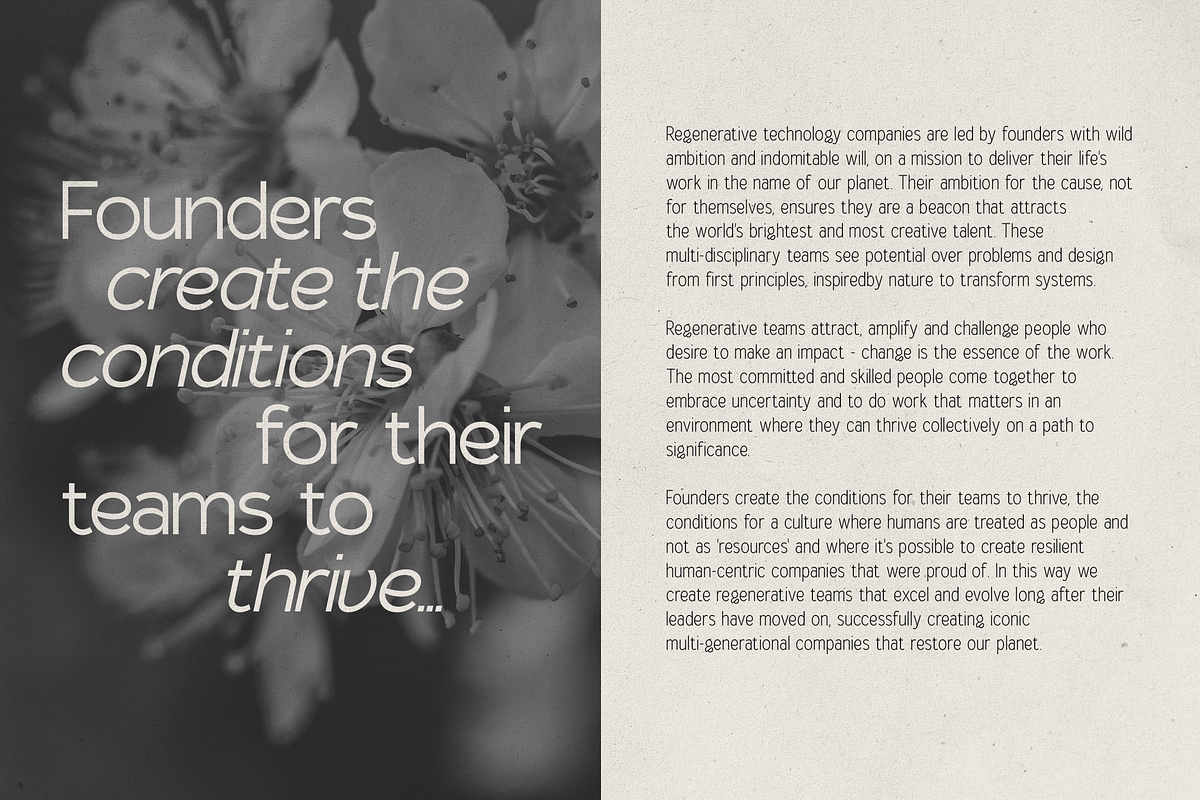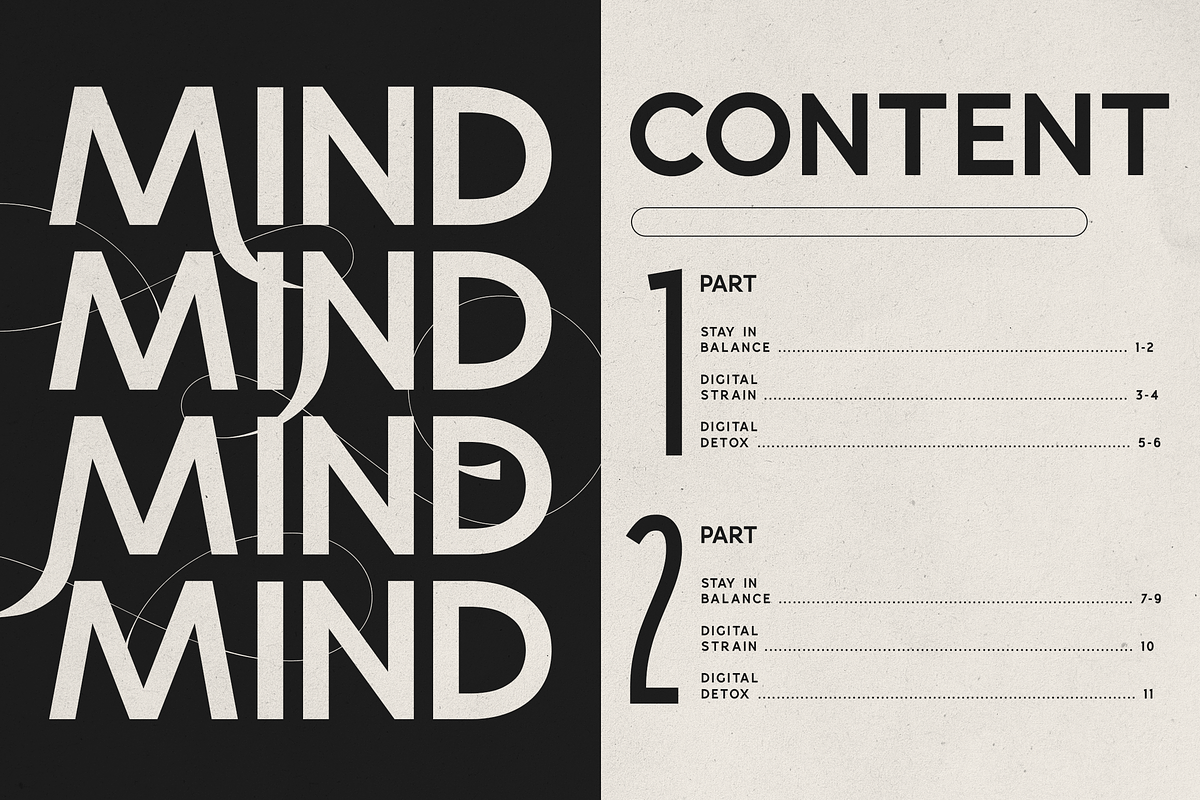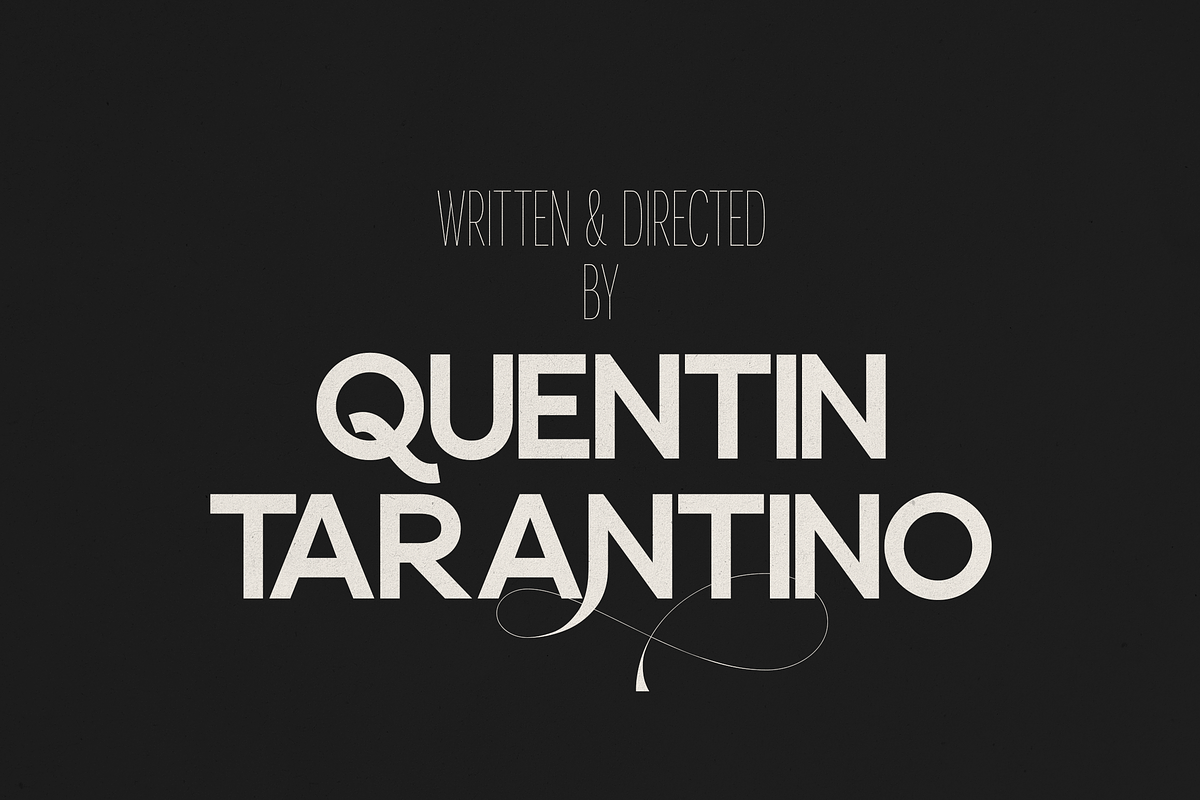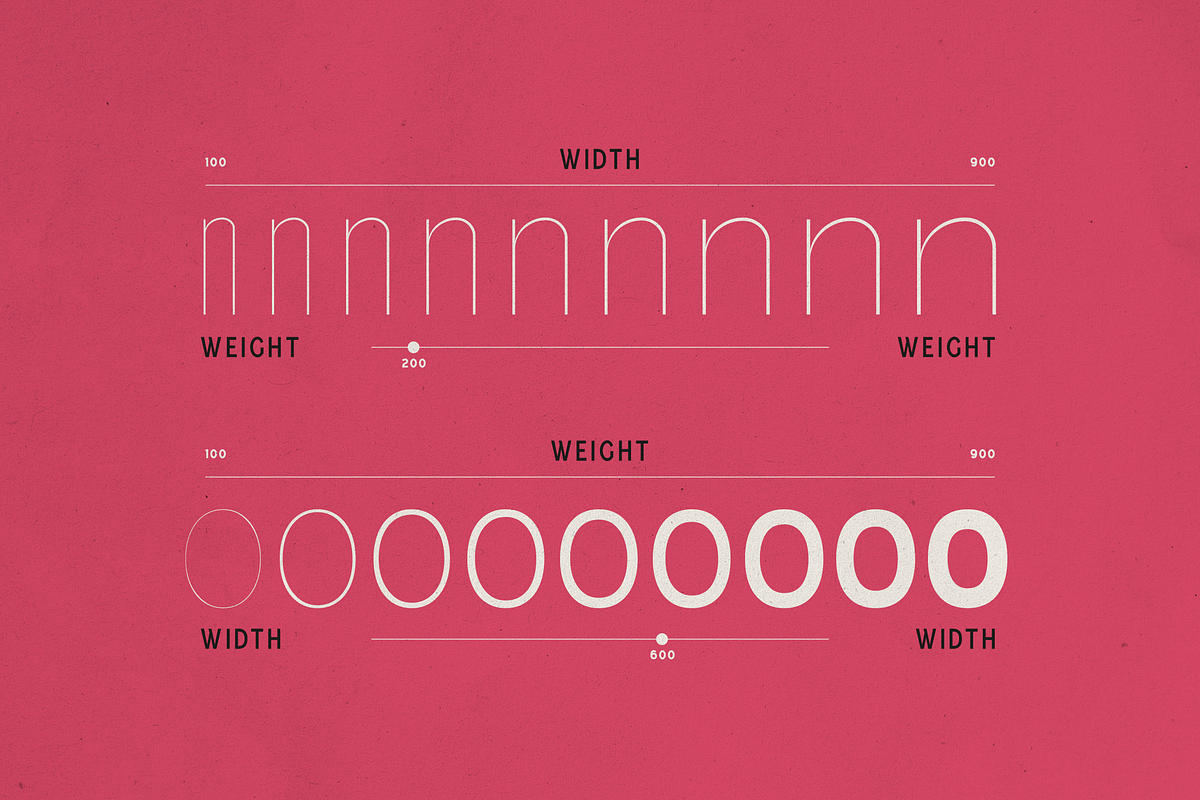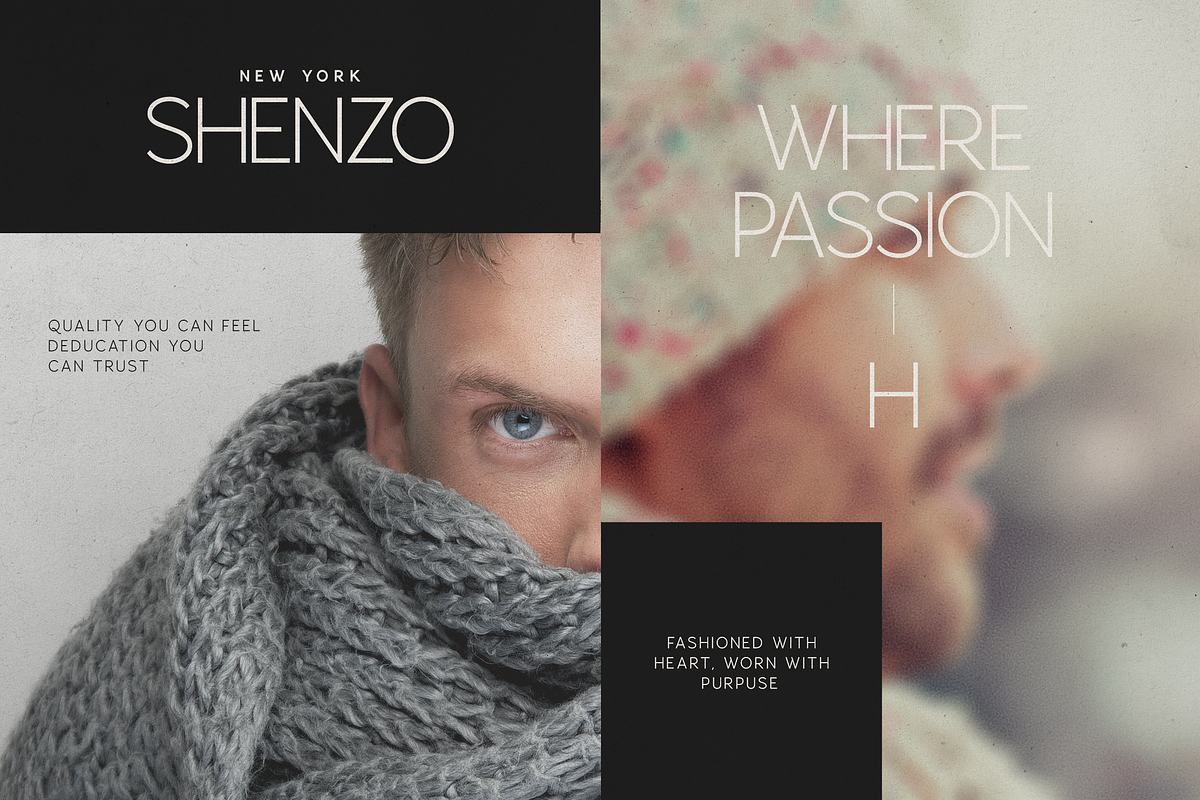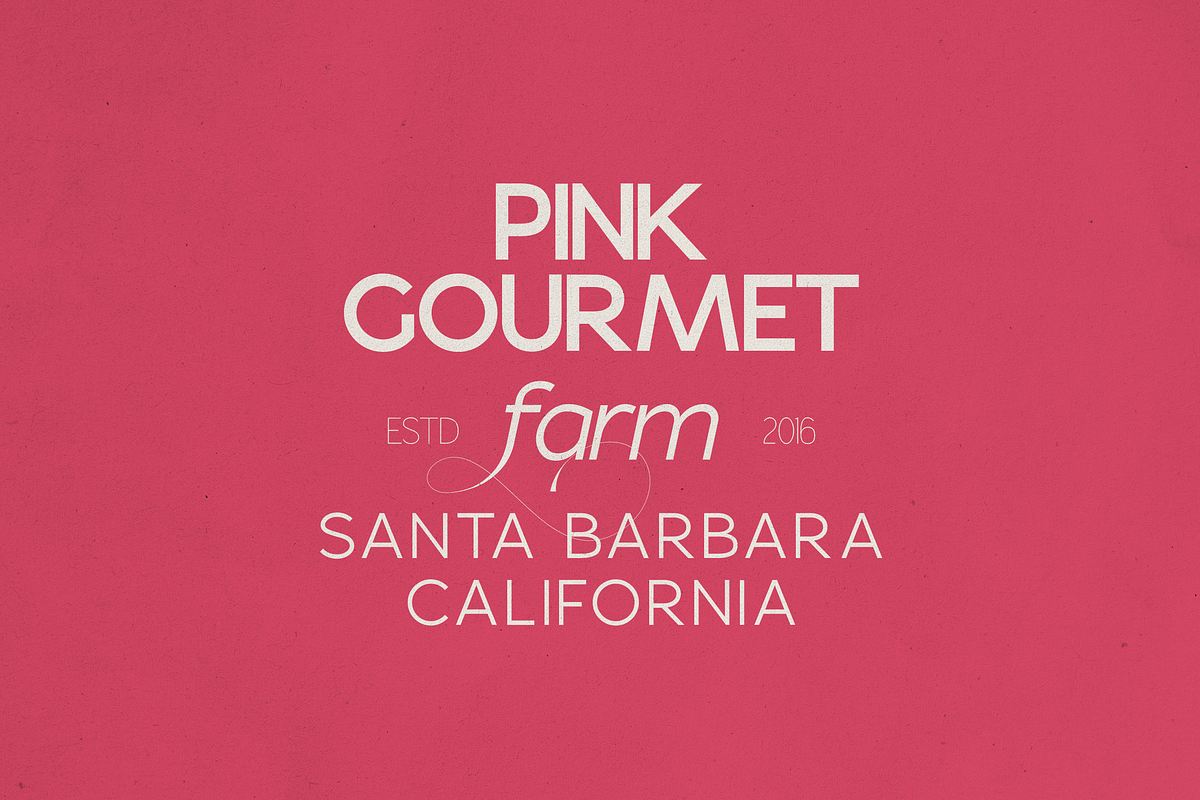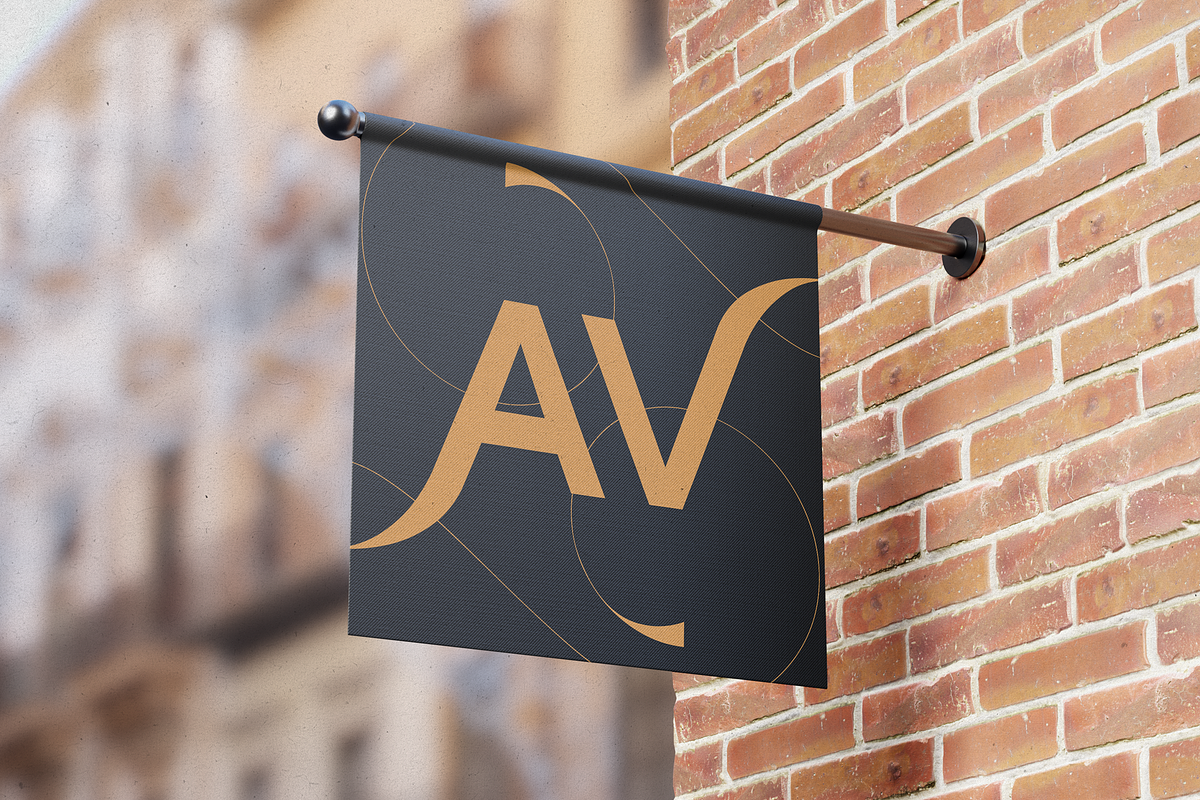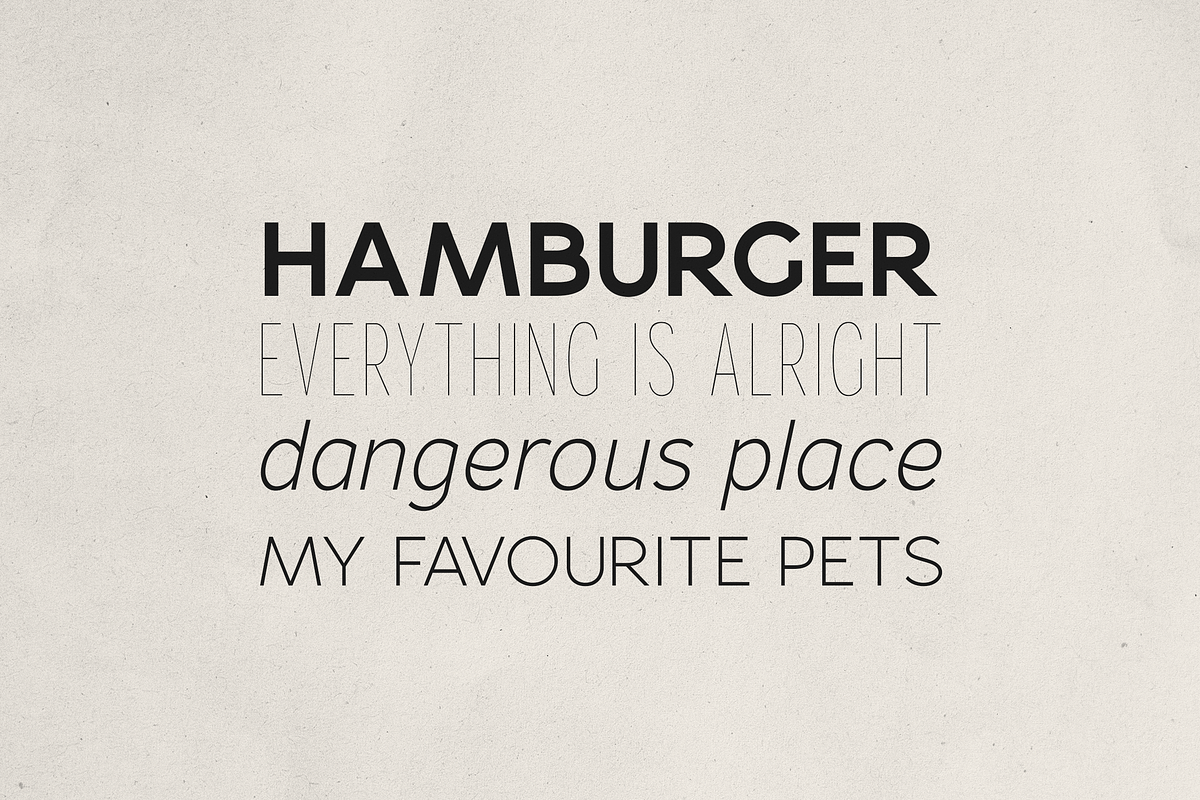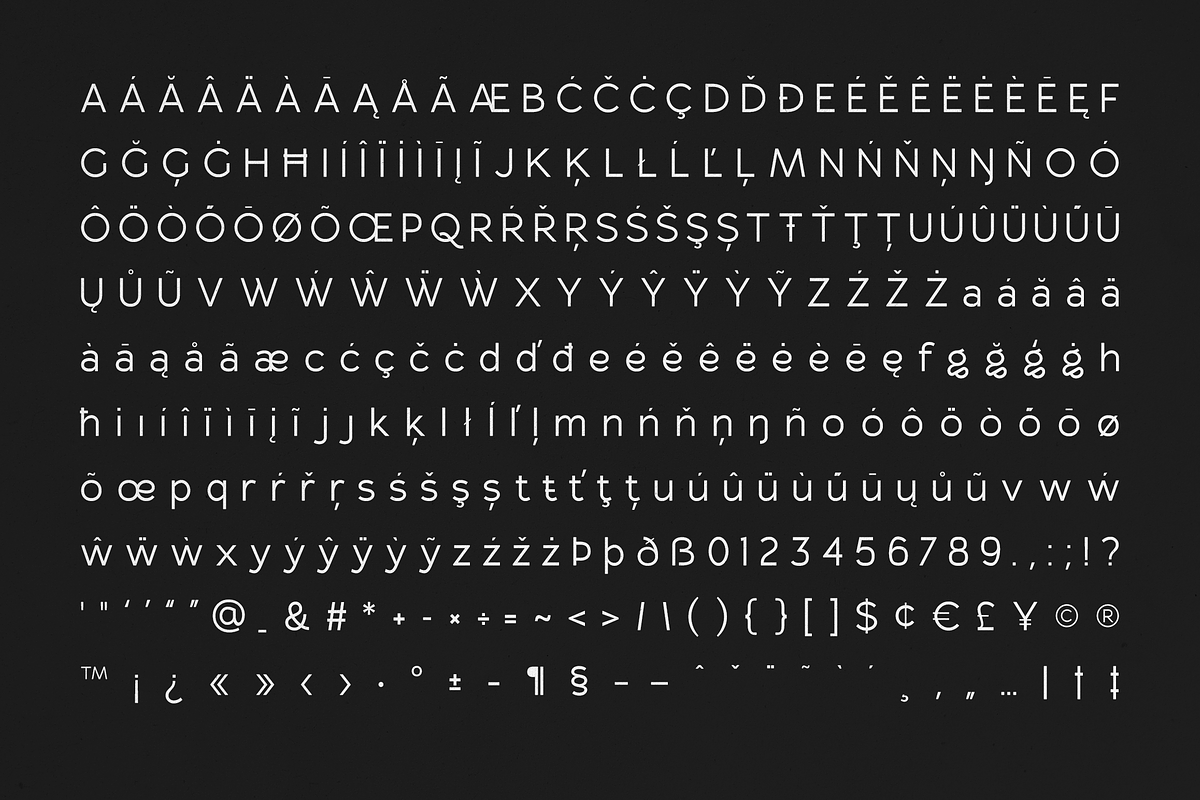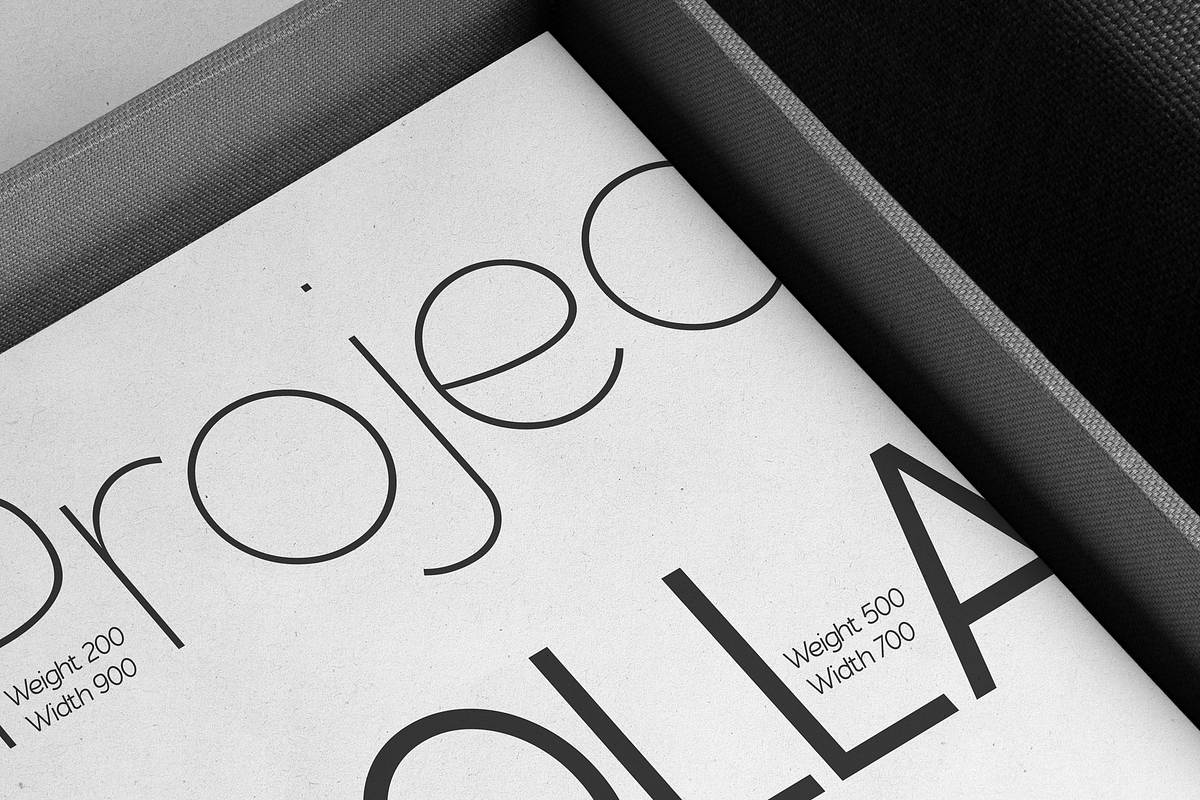
Gorga Sans - 162 fonts + variable
Gorga Sans is a powerhouse variable sans serif font family featuring 162 meticulously crafted styles, from Thin Ultra Condensed to Black Ultra Expanded, each paired with elegant italic counterparts. Designed for maximum flexibility, it’s the ultimate type system for designers who demand both refined aesthetics and technical range.
With two variable fonts (Regular & Italic), Gorga Sans allows you to fine-tune weight and width on a sliding scale — making it perfect for responsive branding, adaptive interfaces, editorial designs, and expressive typography.
- 162 fonts total — Thin to Black, Ultra Condensed to Ultra Expanded
- Complete Italic set for all weights and widths
- 2 Variable Fonts: Regular & Italic with Weight + Width axes
- Support for 85 languages
- Alternate glyphs with beautiful swashes for added flair
- Precise kerning, clean outlines, and optimal legibility at any size
- Ready for logos, headlines, UI/UX, magazines, packaging, and more
- Brand identity systems needing range and cohesion
- Editorial & print layouts seeking style and readability
- Websites, apps, and UI designs requiring responsive typography
- Designers who love expressive, flexible, and high-performance fonts